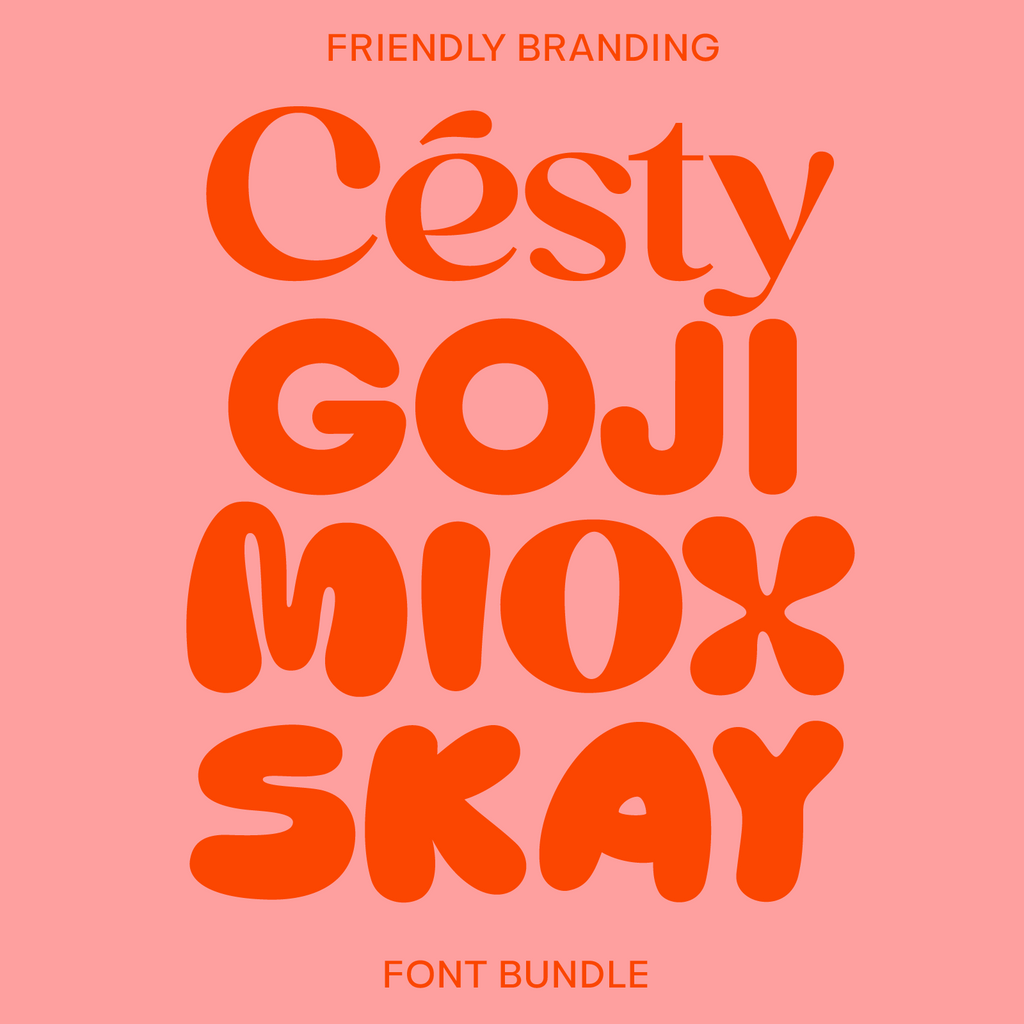
Friendly Branding Pack
Four warm, rounded fonts that feel fun. The kind of typefaces that fit kids brands, food packaging, and lifestyle designs. Includes 4 full families: Cesty, Goji, Miox and Skay.